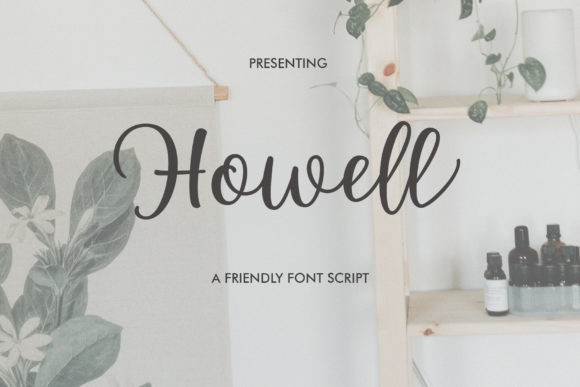
Introducing Howell Script Font, the epitome of elegance and creativity in the world of typography. Crafted by the talented team at genesislabstudio, this font is a masterpiece that combines fantasy and handwritten ink, resulting in a truly mesmerizing and captivating design.
With Howell Script Font, your designs will transcend the ordinary and reach new heights of beauty. Whether you're working on wedding designs, branding materials, blog titles, quotes and invitations, or even business cards, this font is the perfect choice to make your creations shine.
One of the key features of Howell Script Font is its versatility. It seamlessly adapts to various design styles, allowing you to express your unique personality and create stunning visuals that resonate with your audience. Its timeless elegance will leave a lasting impression on anyone who beholds it.
But what sets Howell Script Font apart from the rest? Its extensive collection of glyphs and swashes, which are easily accessible thanks to its PUA encoding. This means that you have endless possibilities to customize and personalize your designs, adding that extra touch of sophistication and uniqueness.
Imagine the impact of using Howell Script Font in your next project. Your words will dance across the page, exuding grace and charm. The fluid strokes and delicate curves will evoke emotions and captivate your audience, leaving them in awe of your creativity.
Now is the time to elevate your designs to new heights. Embrace the enchanting allure of Howell Script Font and watch as your creations come to life with a touch of magic. Let your imagination run wild and unlock the endless possibilities that this font has to offer.